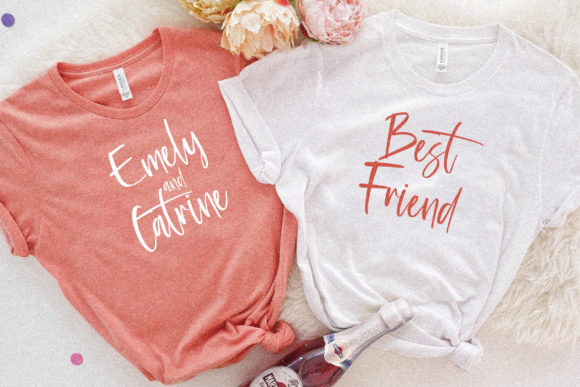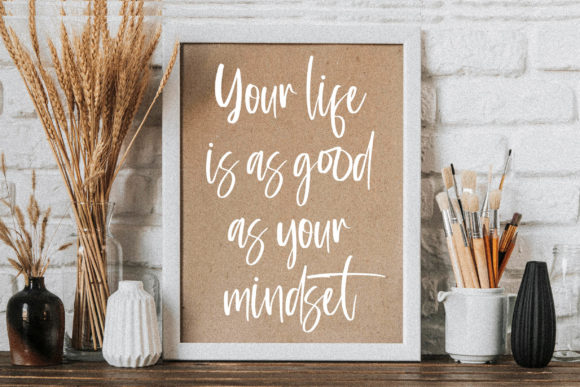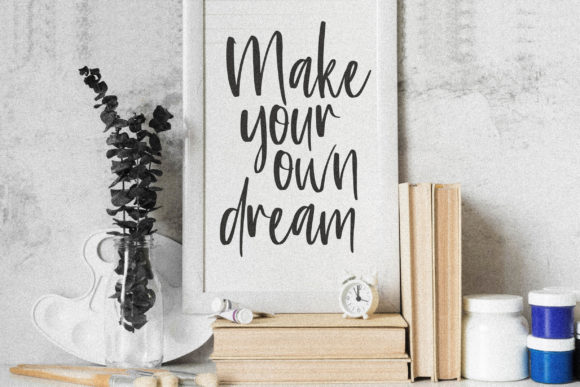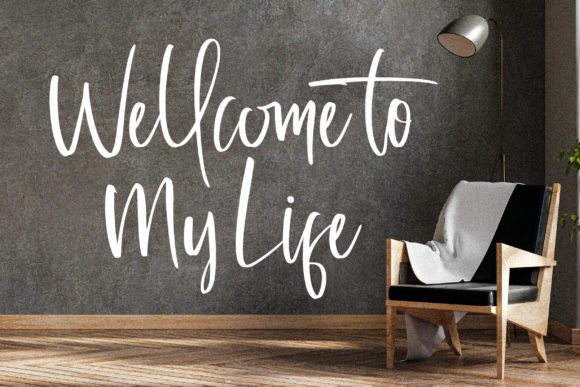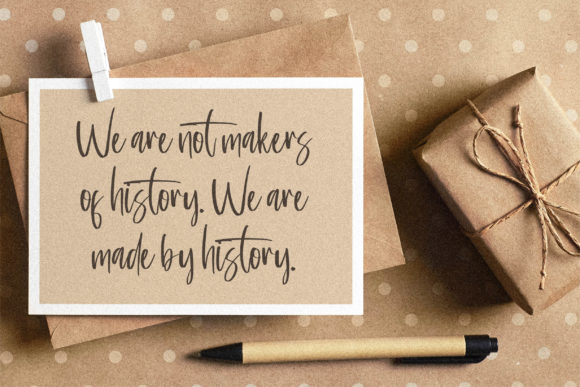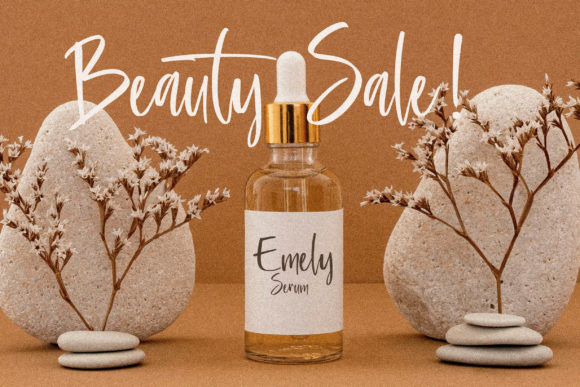
Introduction to Lightgraph Font
Lightgraph is a chic, refined script font that emanates sophistication and elegance.
Its stylish alternates and ligatures make this font the perfect match for any project .